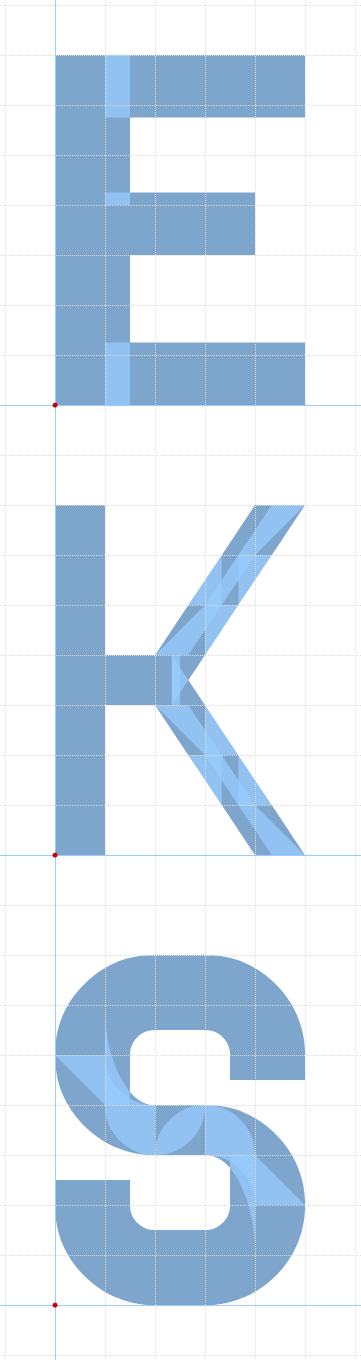
Very good! And, while the bold uppercase/regular lowercase is clever, maybe they deserve a font each.
Also, you could try to make some characters such F and E a little narrower.
It's unlikely that I'll split these into two typefaces as there are too many letters I'm not very happy with - the E and F being two prime examples. And because of their construction, there's no way that I can think of to reduce their width by a sufficiently subtle amount. Their current shapes are a sacrifice of letter-width in favour of line-width, as the image below should hopefully illustrate.
The thinner K construction should give an idea as to how awkward some of the shapes were to build - deceptively difficult in places. And the bold S is one letter that will never maintain the smoothness of the other forms.